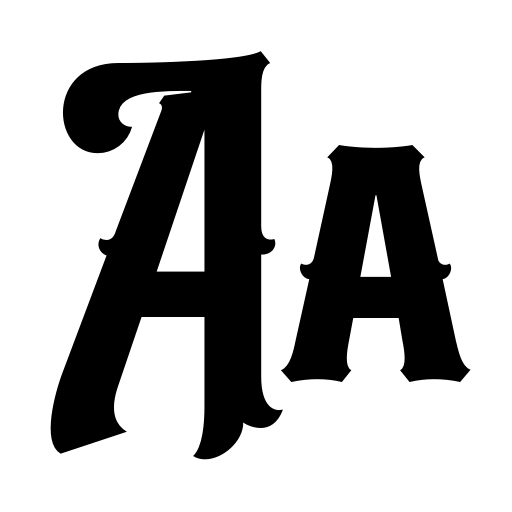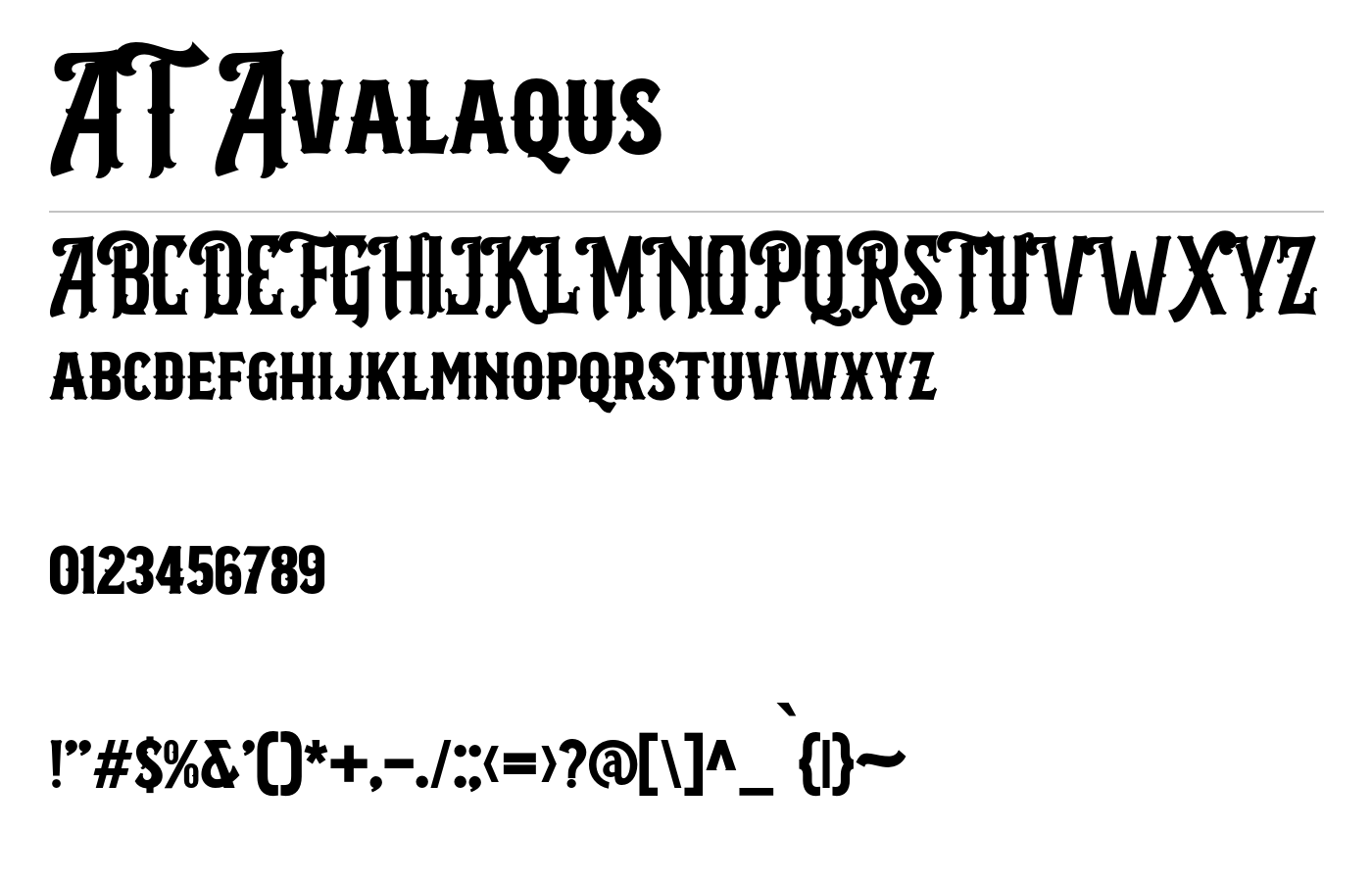
AT Avalaqus is a bold serif typeface with a strong vintage Western vibe, featuring thick, blocky letterforms enhanced by distinctive ornamental details and bracketed serifs. Its condensed width and high contrast strokes with sharp edges give it a commanding presence, suitable for striking headlines and branding that need a rugged, historic character. This font works especially well for posters, logos, and packaging that aim to evoke a sense of tradition, strength, and bold style.
AT Avalaqus Font
About AT Avalaqus Font
| Font family | AT Avalaqus Font |